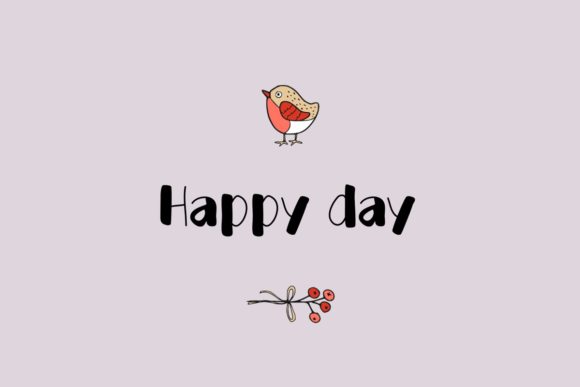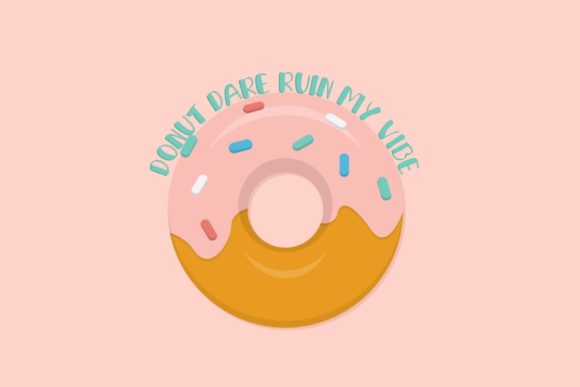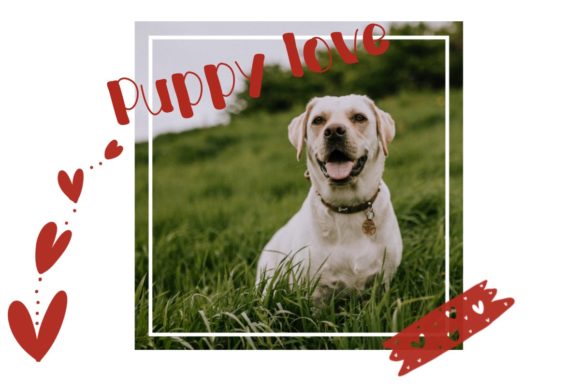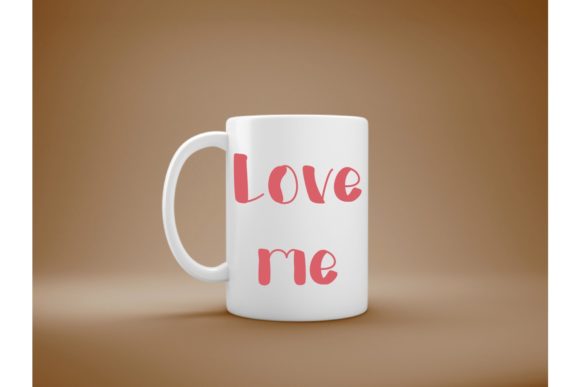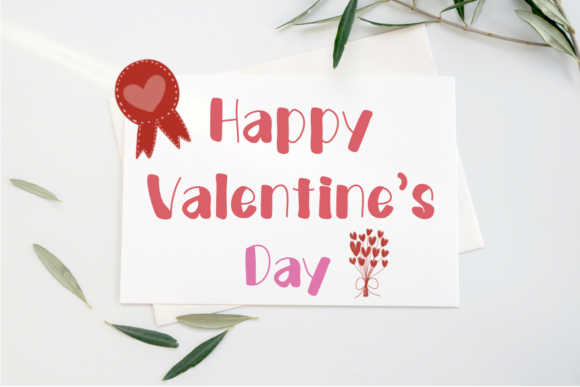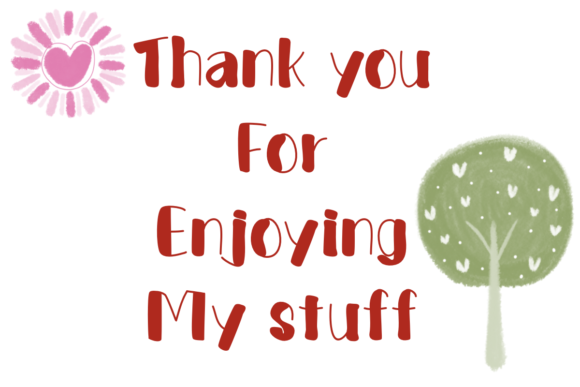
Discover the Sweet Taste of Style with Cherry Pie Font
Have you ever stared at a blank canvas, wondering where to begin, and suddenly the perfect font pops into your mind? For designers, that moment is pure magic. It’s the spark that ignites a creative fire, guiding your vision and bringing your ideas to life. For me, that moment came when I stumbled upon the captivating Cherry Pie Font.
With its smooth lines and daring style, Cherry Pie Font is a modern display font that’s as readable as it is stylish. Whether you’re working on a fashion branding project or creating an editorial design, this font is the perfect addition to your toolkit. Its versatility and sophistication make it an invaluable asset for designers looking to elevate their work and leave a lasting impression.
Key Features of Cherry Pie Font
- Font Family: Cherry Pie Font is a sans-serif font family, ideal for modern designs.
- Unique Characteristics: Cherry Pie Font features a unique blend of modern and playful elements, with rounded edges and a friendly feel.
- Kerning and Ligatures: Includes advanced kerning and ligature features for smooth and professional typography.
Cherry Pie Font Review
Overall, I think the Cherry Pie Font is a sweet addition to any design project. Here are some things that work well: ✨
- The font’s playful and whimsical nature is perfect for adding a touch of fun to children’s books, baking labels, or even food blogs.
- The letterforms are well-balanced and easy to read, making it suitable for body text or headings.
- The font’s nostalgic feel is reminiscent of classic desserts and adds a charming touch to any design.
However, I do have some concerns: ⚠️
- The font’s design can be a bit too cutesy for more serious or professional projects.
- The letter spacing can be inconsistent at times, which may affect readability.
- The font family is relatively small, which limits its versatility and flexibility.
Overall, I’d give the Cherry Pie Font 4 out of 5 stars. While it excels in certain areas, it may not be the best fit for every design project. With some adjustments to the letter spacing and a larger font family, I think this font has the potential to be a real showstopper.
Tips for Getting the Most Out of Cherry Pie Font
Here are some tips for getting the most out of Cherry Pie Font:
- Use it for titles and headings to add a touch of whimsy to your design.
- Pair it with bold, bright colors to create a playful and eye-catching look.
- Use it for quotes and captions to add a personal touch to your design.
Cherry Pie Font is perfect for:
- Food and dessert-themed designs.
- Children’s book illustrations. Alternatives to Cherry Pie Font for Designers
- Use the font for recipe titles and headings.
- Pair it with a distressed or vintage-inspired background to add a nostalgic feel.
- Combine it with colorful illustrations of fruits and baking utensils to bring the recipes to life.
- Use a bold, sans-serif font for ingredient lists to provide contrast and make it easier to read.
- Choose a pastel color palette to evoke a sense of warmth and nostalgia.
- Don’t be afraid to add some hand-drawn elements, like flourishes and borders, to give the book a personal touch.
- Use the font for post titles, headings, and subheadings.
- Pair it with a warm, beige-colored background to evoke a sense of comfort and coziness.
- Combine it with high-quality food photography and subtle texture overlays to create a visually appealing and appetizing atmosphere.
- Use a clean, sans-serif font for body text to make it easy to read and navigate.